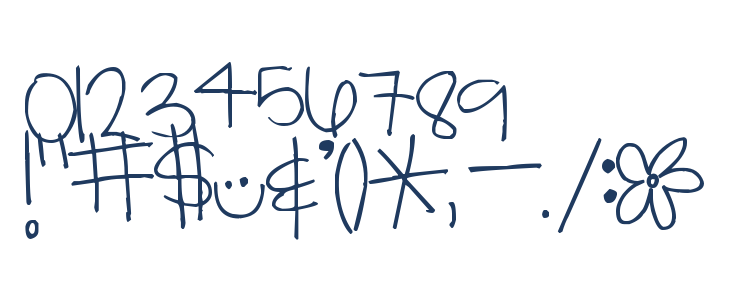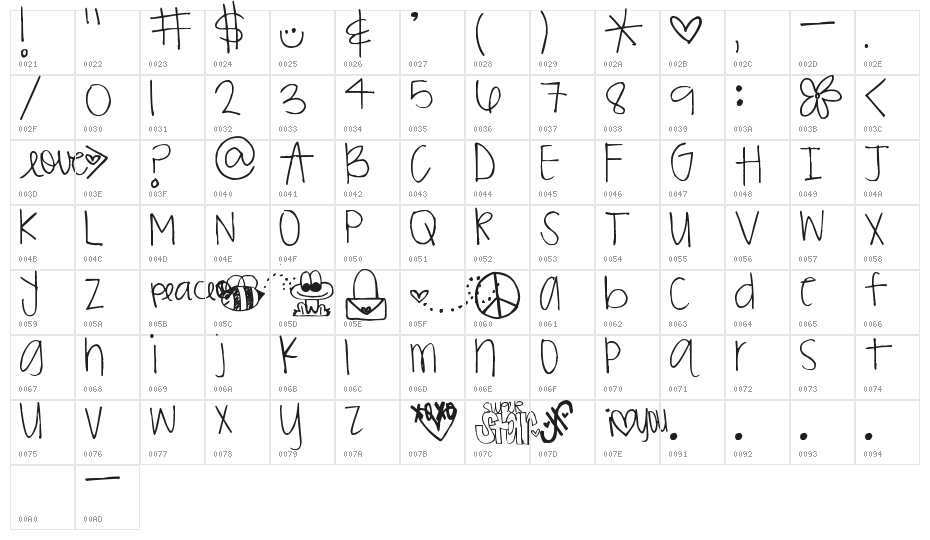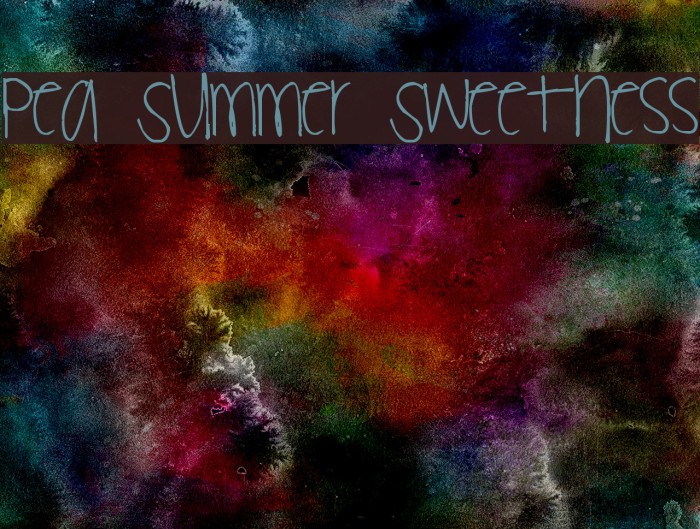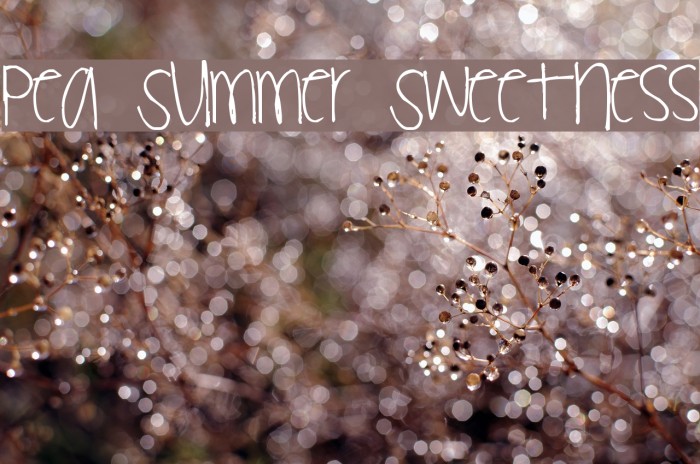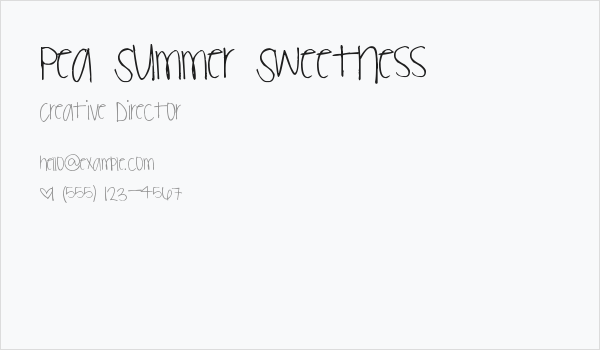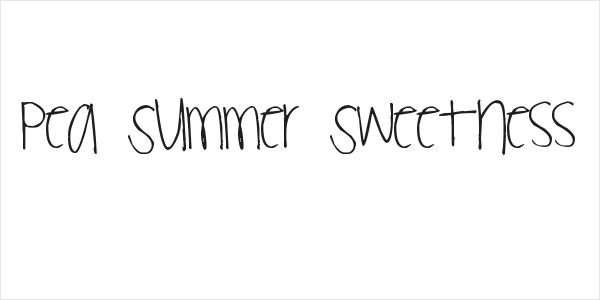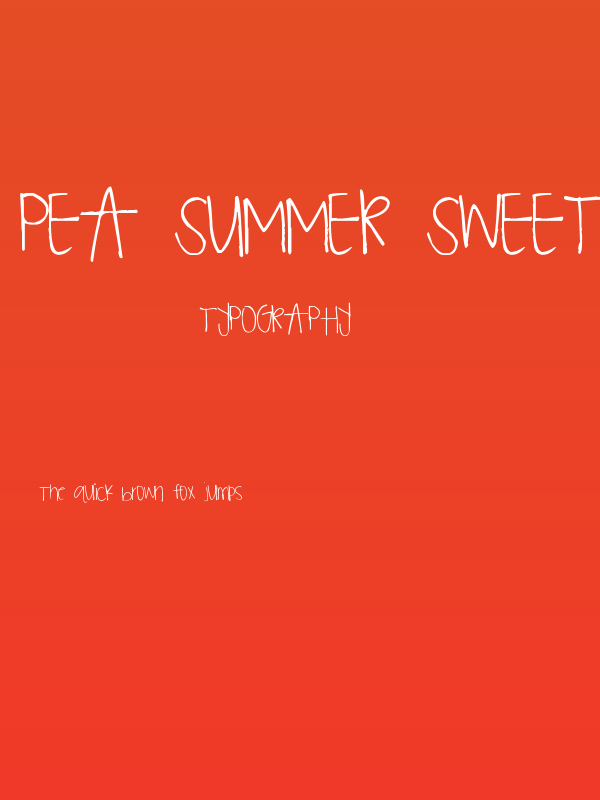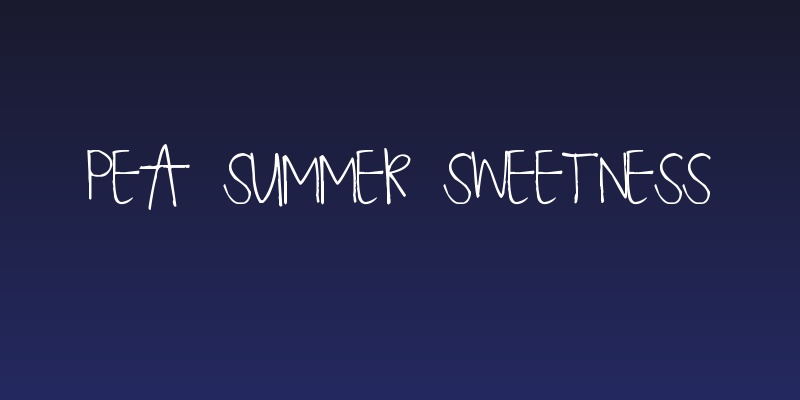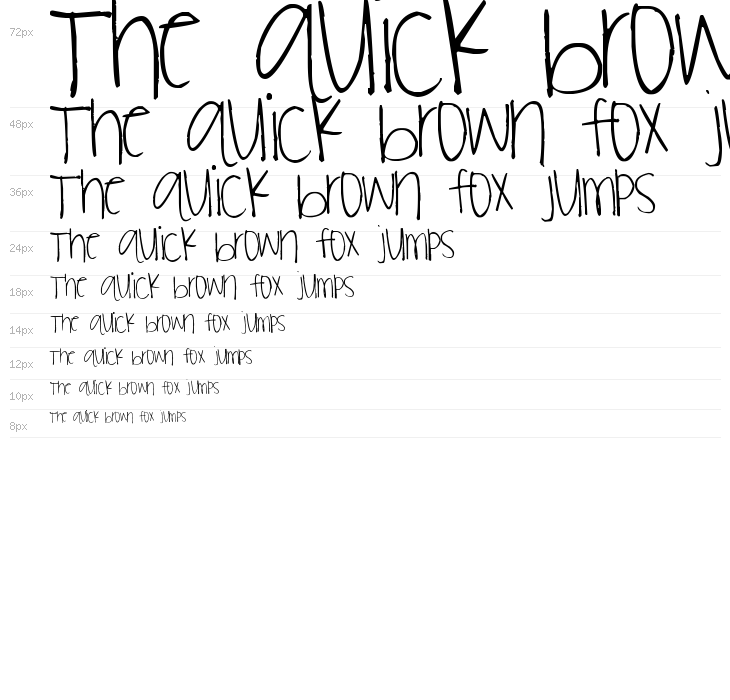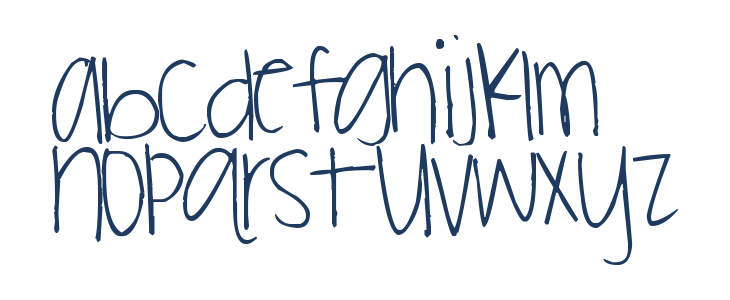
Pea Summer Sweetness Font
Pea Summer Sweetness Description
This font exudes a playful and casual vibe, characterized by its handwritten style with uneven strokes and a slightly irregular baseline. The letters are tall and narrow, giving it a unique, whimsical appearance. The uppercase and lowercase letters maintain a consistent style, with rounded edges and a relaxed flow. Numbers and special characters are crafted with the same informal touch, making the font suitable for projects that require a personal and approachable feel. Its overall design is reminiscent of a carefree summer day, perfect for adding a touch of warmth and friendliness to any text.
| Proposed Projects | Ideal for greeting cards, children's books, casual invitations, and social media graphics. |